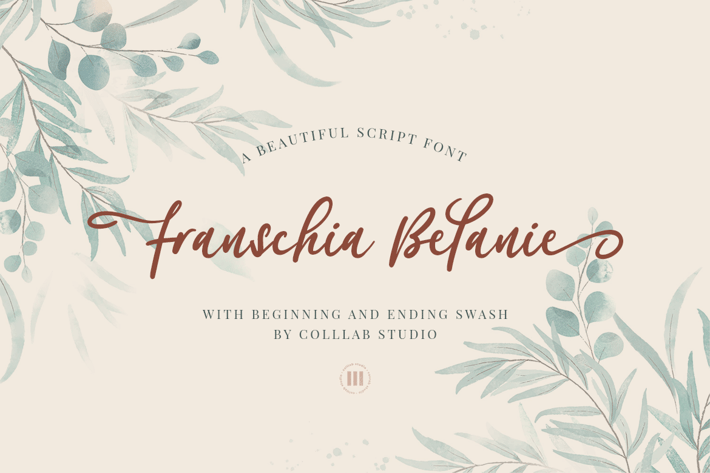
Franschia Belanie - A Script Font
Meet Franschia Belanie, a font that was created to look like luxury beauty calligraphy. We didn’t want to make just any font, we wanted to make the kind of font that would make you stop and do a double take. The kind of font that looks like it was made by hand, with all the curving lines and elegant swirls of fine calligraphy.
This font is perfect for when you need something really special, like an invitation for a fancy gala or a wedding, or to use on your Christmas cards this year. It comes with tons of great features, including extra beginning and ending swashes, ornate ligatures, and lots more—so you can customize it however you want!
- 397 Glyphs,
- 10 Ligatures & Swashes
- 6 Sets of Stylistic Alternates
- Multilanguage Support ( 64 Languages )